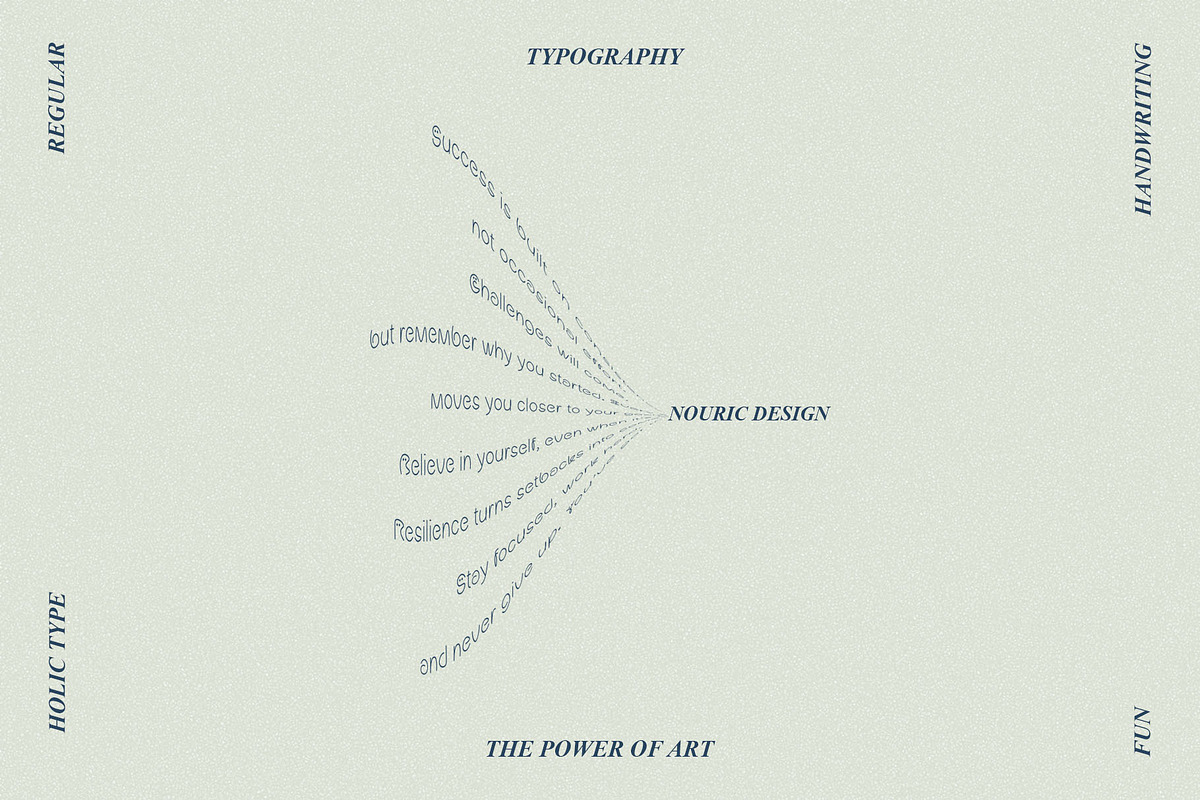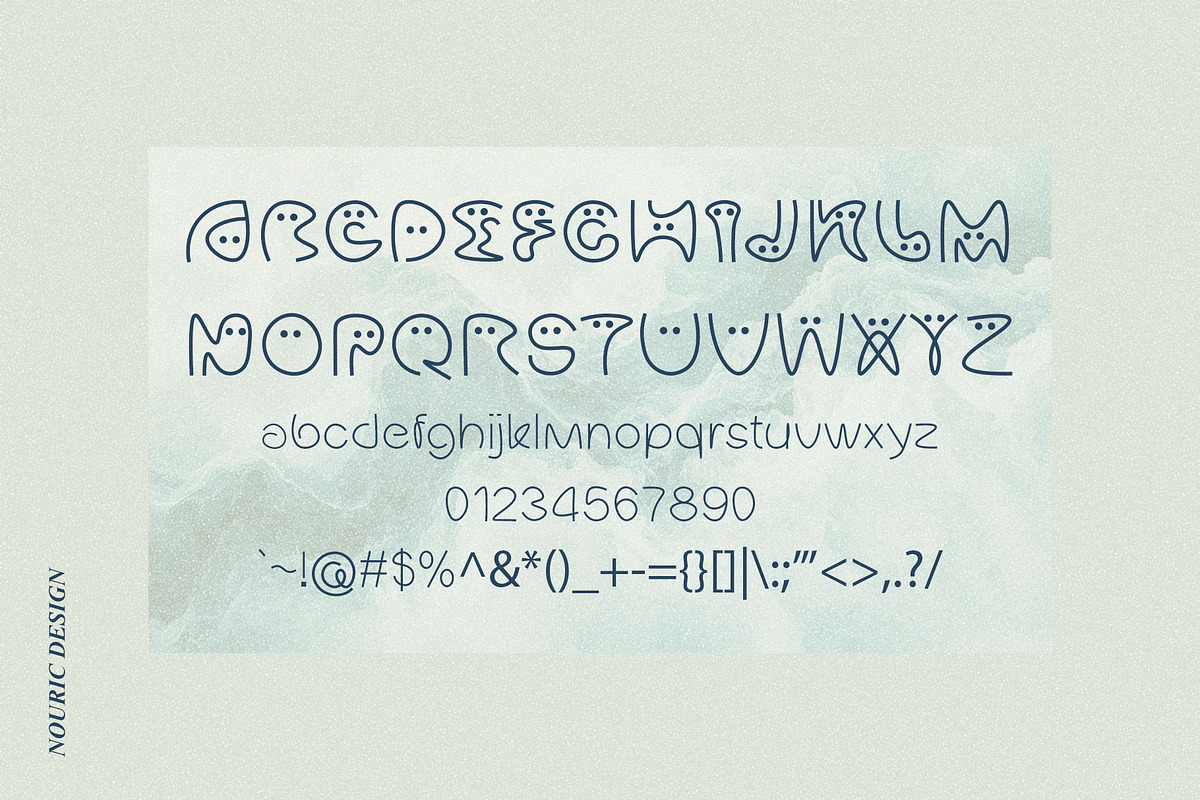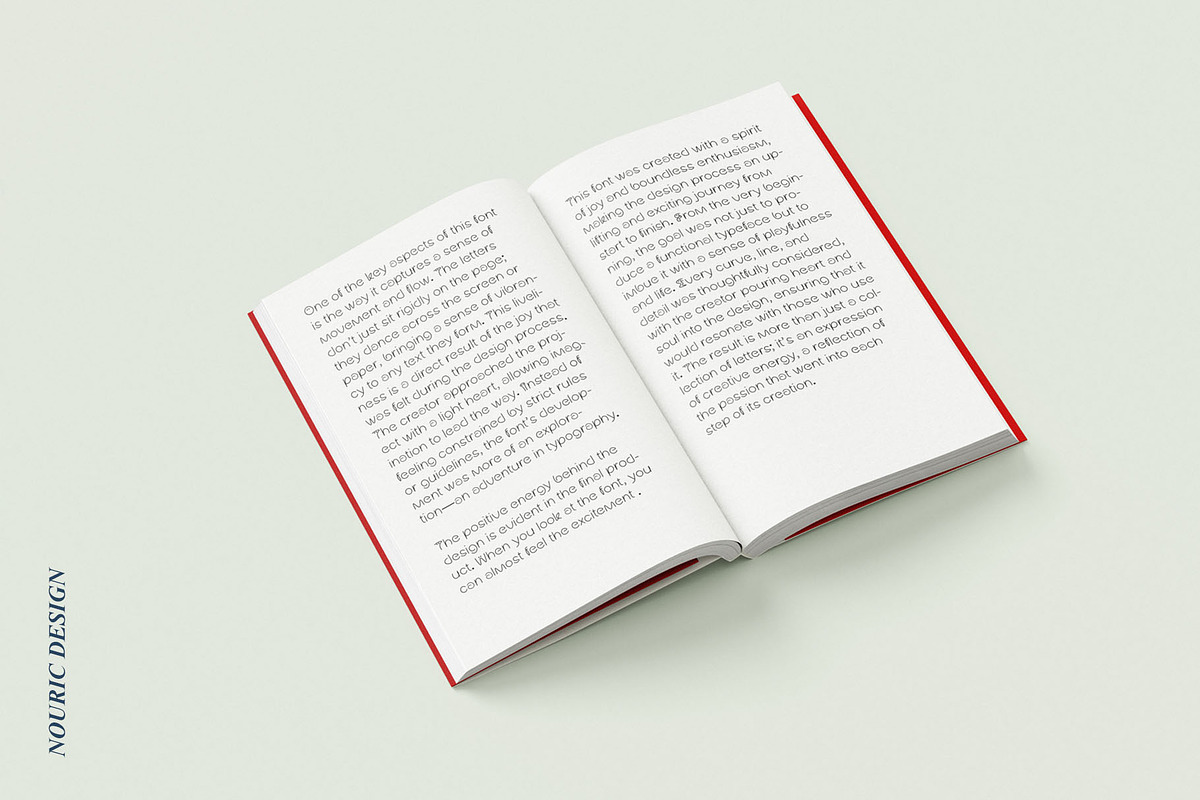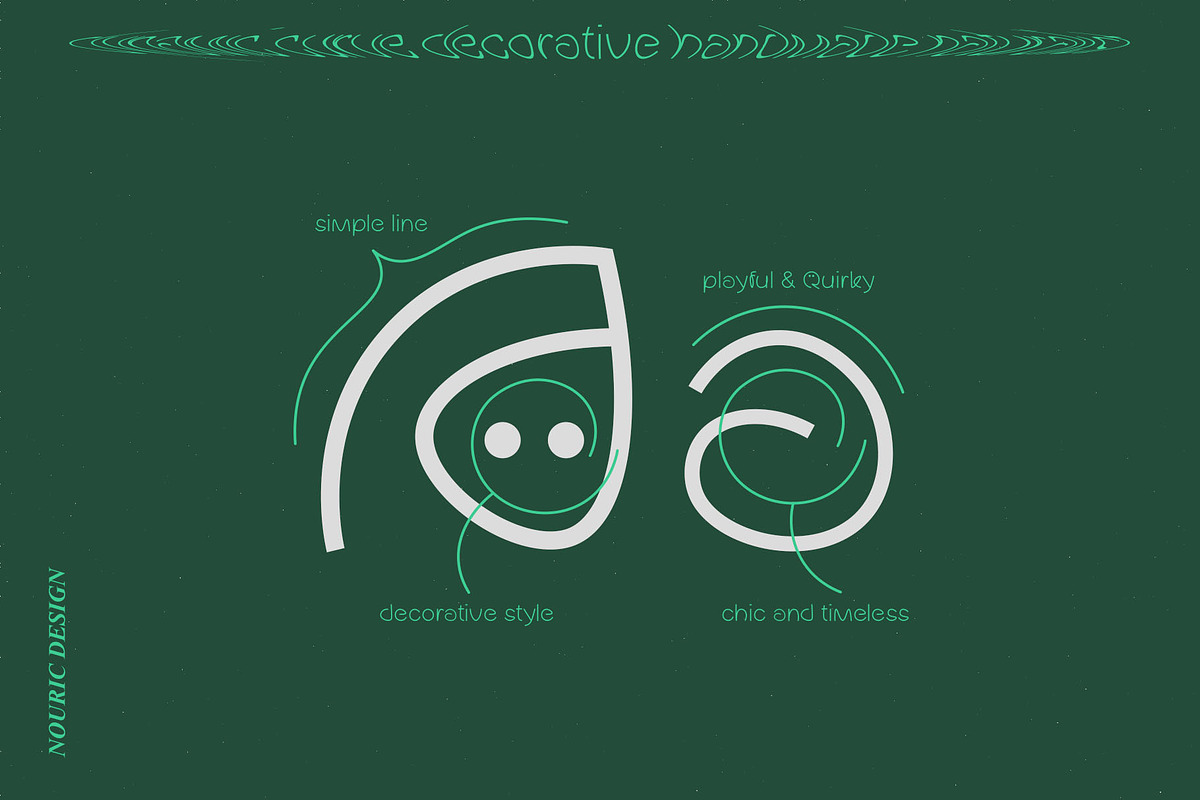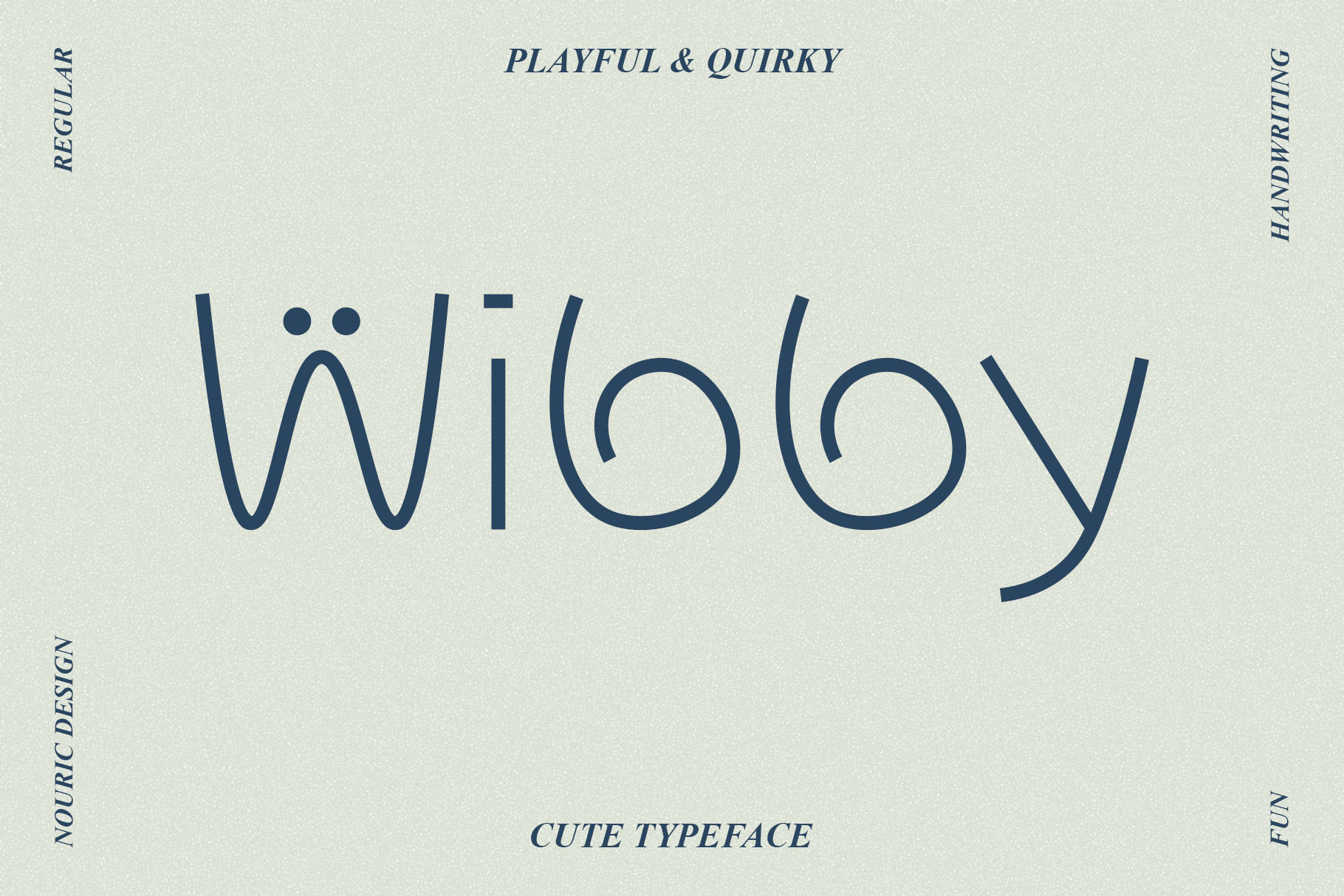
Wibby Handwriting Typeface
Introducing our charming Handwriting Typeface, crafted to bring a natural, personal touch to your designs. Perfect for invitations, branding, and creative projects, this font combines elegance with a casual, handwritten style for a unique and memorable look. Elevate your designs effortlessly!